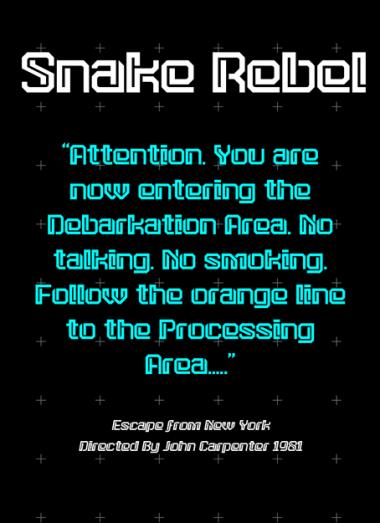
Now with European characters and final tweaking with new bricks.
OMG. This rocks.
Keeping with the Escape From New York theme. I whipped this up.
furios font!
ma, this font looks like youve been doing this a long time. congrat and thank you. very cool
this satisfies exactly what was missing in "snake"!
A work of art! One of my instant favorite Fontstructions :)
I agree with kix. Very interesting choices for your solutions.
Wow, this really is a beautiful typeface!